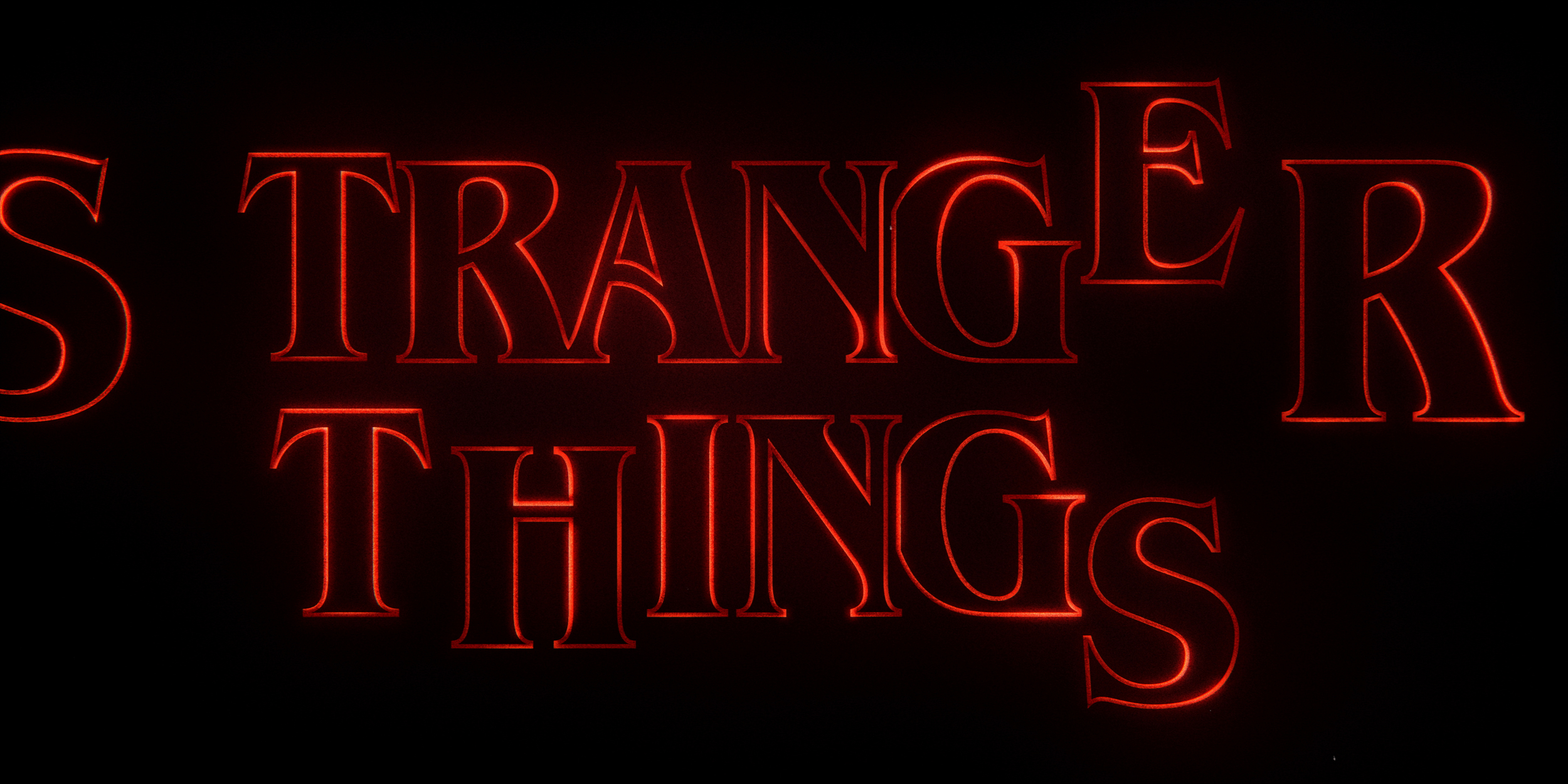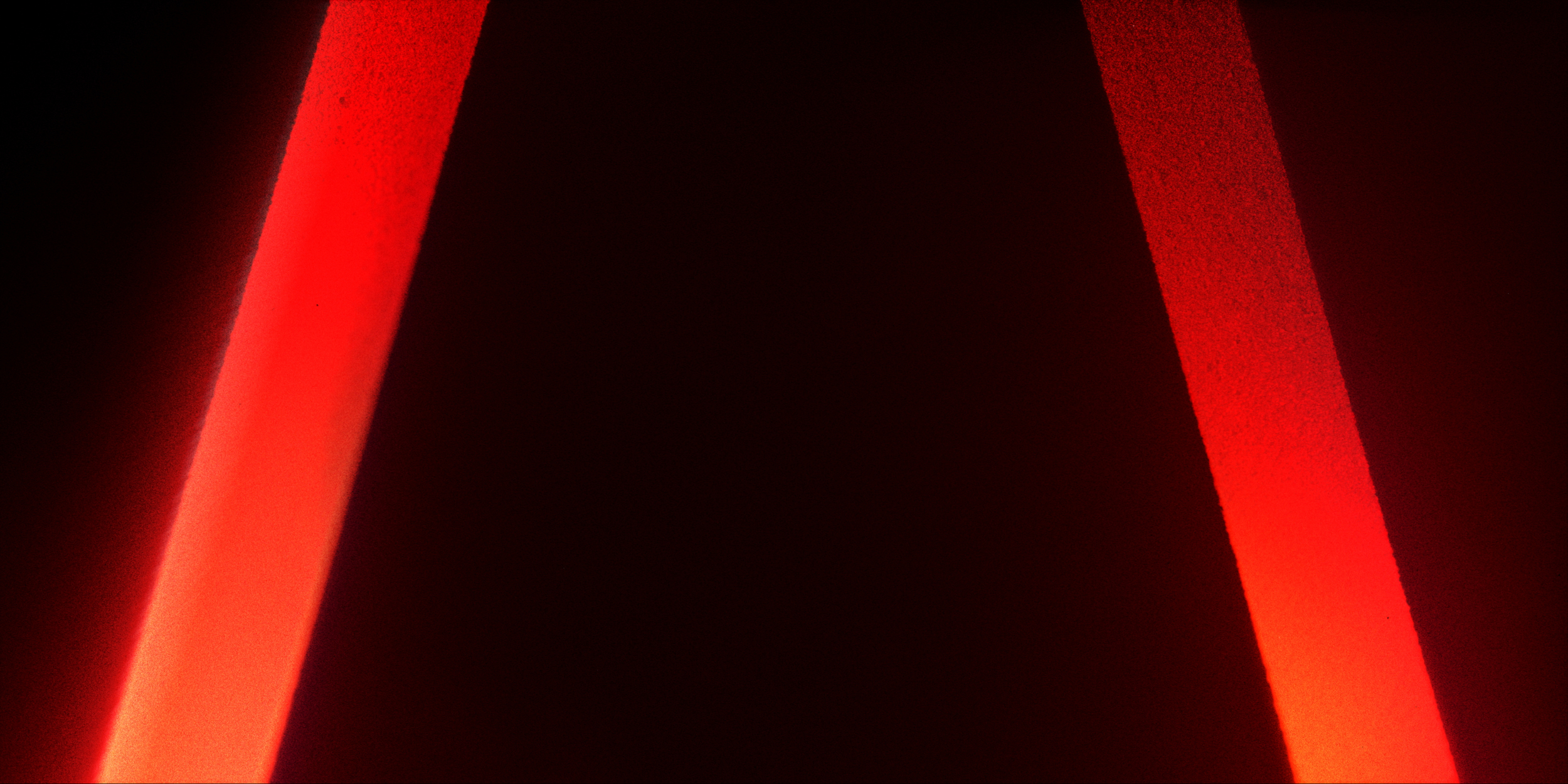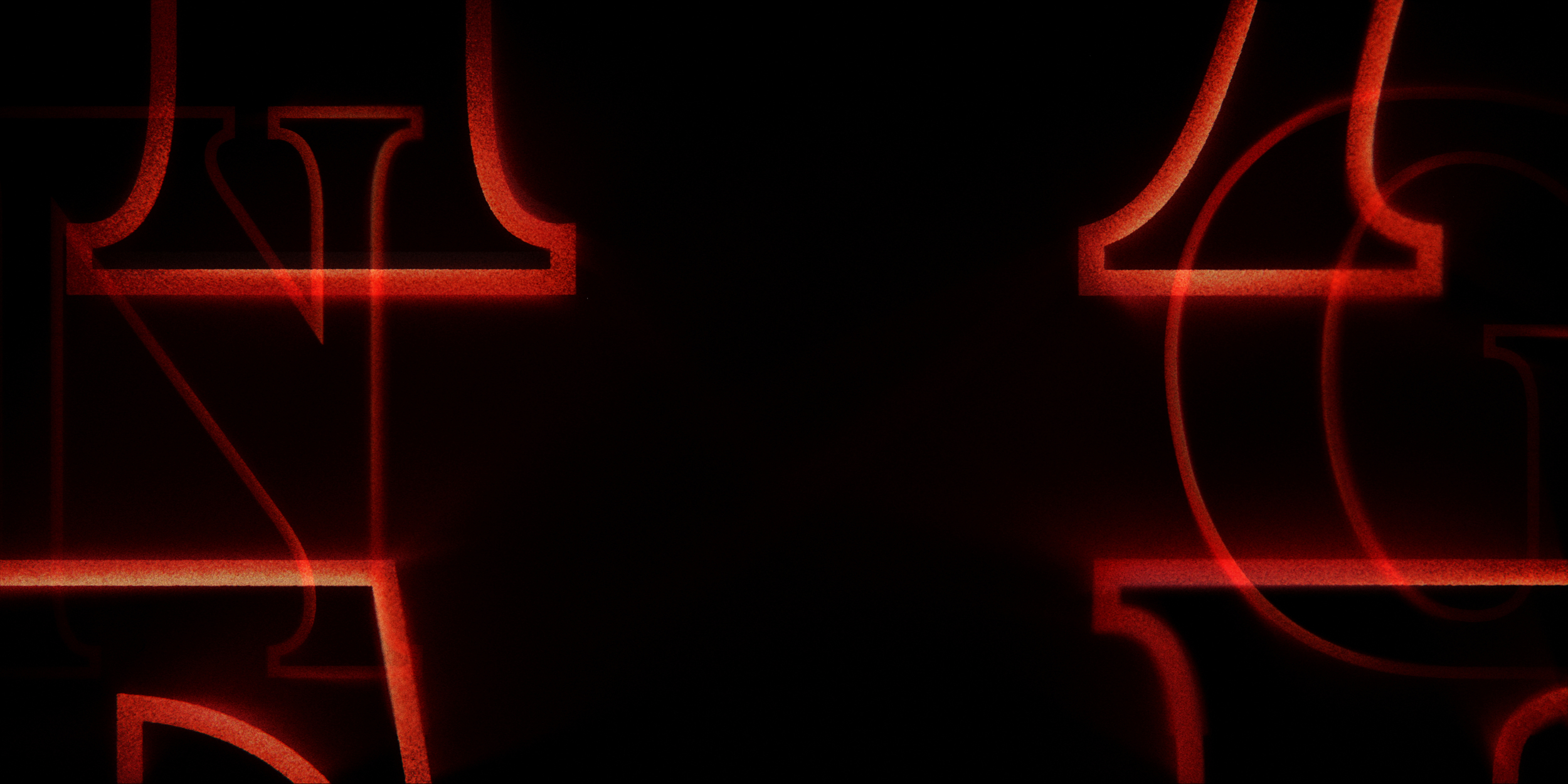
Stranger Things Lettering - An Interview with Designer Eric Demeusy
Lettering and type can be very powerful and can carry a huge impact. The recent Netflix hit series 'Stranger Things' proves just that, with a title sequence that has captivated many since the show was first released. Created by the Duffer brothers and set in the early 1980's the series follows a group of young boys, a very remarkable girl and a couple of others, as they try to solve a very eerie mystery that takes part in a small town.
Minutes into the first episode I knew I was going to love the series, but when I saw the title sequence for the first time I was completely sold, it was so simple but clever. Unlike many other title sequences that include either clips from the shows episodes or other visual elements, the 'Stranger Things' title just focuses and relies on lettering to introduce the show. For nearly a minute you are guided around sections of glowing animated letterforms until finally being presented with the whole title.
The lettering portrays so many things to the viewer without needing anything else to support it. Anyone familiar with older Stephen King novels and other eighties horror / thriller books will notice that the 'Stranger Things' lettering bears a resemblance. This is because of the serif letters which were more commonly used in the 1980's, and enlarged first and last letters on 'Stranger', allowing for 'Things' to sit snuggly between them. The lettering is also outlined with a mysterious glow that you can't see beyond setting an air of mystery. Immediately you know there is a 1980's theme which centres around horror, thriller and mystery. This striking work just goes to show that provided you use the right style and tone lettering alone can send many messages, not just through what it says but by how it is presented.
I caught up with the wonderfully creative Eric Demeusy who worked as a designer, animator and compositor on the 'Stranger Things' title sequence to find out more about the significant lettering. Eric worked with a small talented team at Imaginary Forces to bring the sequence to life. He has worked on a number of other projects besides 'Stranger Things'. Some of these include the Game of Thrones title sequence, the Marvel series Jessica Jones and the Justified series. Eric is very skilled and has worked on Emmy nominated and award winning title sequences, his role varies from project to project but has often involved animating lettering.
Why do you think it was important to focus solely on lettering for the title sequence, rather than include other elements in the sequence such as snippets from episodes in the show or other visual elements?
"I think with any title sequence it's important to set the tone and in this case it's mystery and suspense. So we start with the letters really big to the point where you don't really know what they are at first. As it progresses you start to realize they are letters and that they are the letters that make up the title. The show in a way is about putting the puzzle pieces together and metaphorically we used the type to do the same thing. Adding anything else to the sequence would have diluted your focus from that concept. If you strip a title sequence to it's bare bones, you're left with nothing but the title and the letters that make it up."
Both Stranger Things and the title sequence of the show which heavily features serif lettering have been incredibly popular. Sans serif lettering has been more prominently used in recent years, do you see there now being a rise in popularity for serif lettering within the design world?
"That's a good question. I think generally it should depend on the content of the source material. In this case because of the time period of the show and the thriller aspect to it there was an intention to throw it back to classic 80's thriller book covers. Originally the logo had pointed serifs which added a bit of menace to the lettering but was later changed out. I tend to think of serif to be more classic. I think it's just a matter of trying to change it up."
You mention that the title lettering originally included pointed serifs which got changed out. Did the title lettering go through many other iterations before reaching the point we see it at in the show?
"The logo stayed pretty true to what was in the the design boards from the beginning. The only real change was a slightly different modified typeface. We went through many versions of the sequence when it came to which letters we see in each shot and what parts of the letters we see. We experimented with having the sequence be one long zoom out as well. Overall it was a very fun process and everyone on board loved the direction we were going."
For anyone looking to progress in a career of animating lettering where would you suggest they begin their journey?
"I would say this with almost anything you want to do and that is to just start doing it. Start animating on your own in your free time. Try to mimic things you like in order to get better. Practice. Then find places you want to work or people you want to work with and send them your work."
It's clear from what Eric shares that successful modification of the type was an important step in the development of the title lettering. Being able to modify existing type can be a useful skill to have as a lettering artist. Scott Biersack has a good class on Skillshare teaching you how to modify existing type if you'd like to learn this skill. To view more of Eric Demeusy's work and learn more about him his website ericdemeusy.com is a great starting point.
The next time you're creating some lettering or modifying some type, I challenge you to think about what message that lettering is giving not through words but design, and what impact will that lettering have.